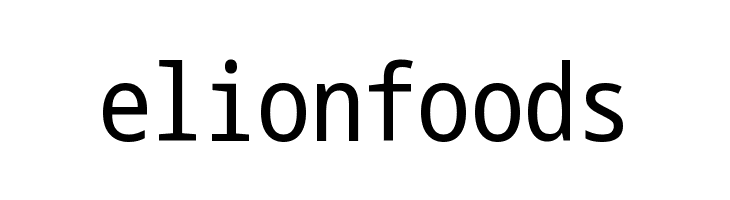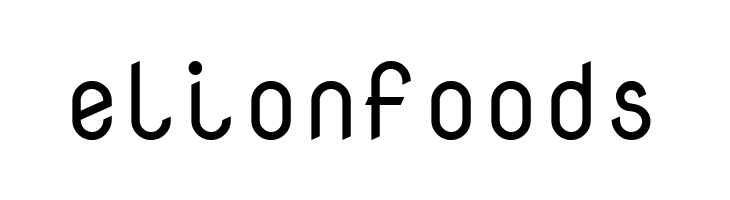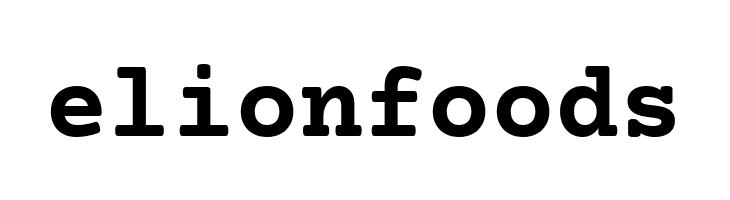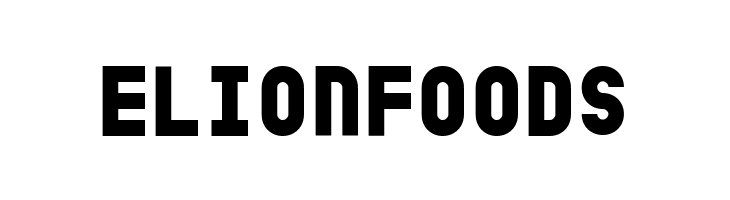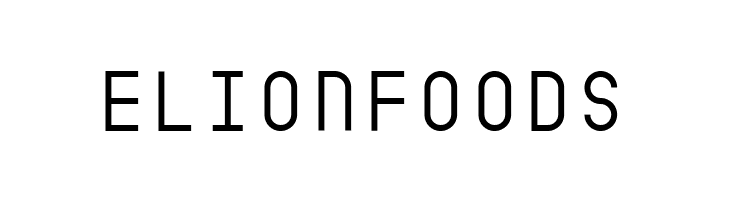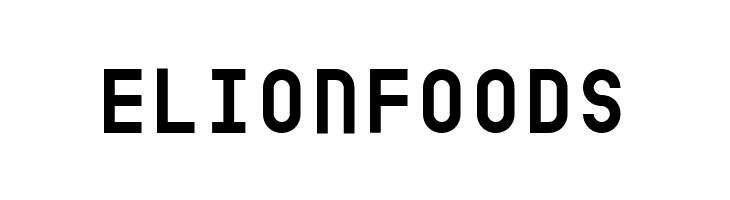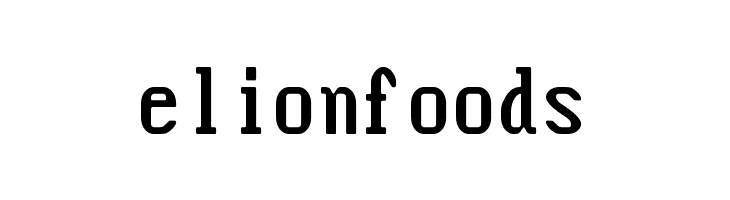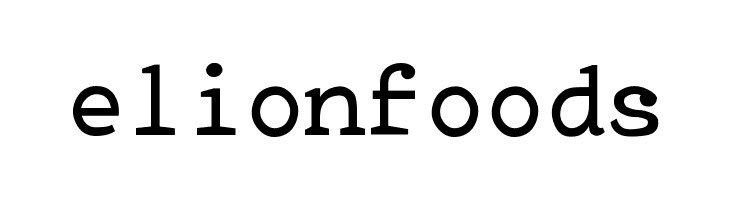
A monospaced, semi-condensed, extra bold sans-serif font with a modern and clean design.
A clean, monospaced, extra-condensed sans-serif font ideal for technical use.
A monospaced, extra condensed, light sans-serif font with a modern and clean design.
A clean, modern monospaced font with a condensed, medium-weight design.
A bold, monospaced, condensed sans-serif typeface with a strong, modern appearance.
A modern, monospaced, extra-condensed sans-serif font with semi-bold weight.
A clean, modern monospaced typeface with an extra condensed style and medium weight.
A clean, modern monospaced font with uniform character widths and low contrast.
A geometric, monospaced font with a modern, technical look.
A monospaced font with a classic, typewriter-inspired design.
A bold, monospaced font with a classic typewriter style.
A bold, monospaced font with a modern and functional design.
A modern, monospaced font with geometric precision and rounded edges.
A bold, monospaced font with a modern, geometric style.
A classic monospaced font with a clean, structured design.
A bold, monospaced font with uniform character width and consistent stroke thickness.
A clean, modern monospaced font with uniform character width and geometric structure.
A bold, geometric monospaced font with a modern, technical style.
A monospaced font with a clean, geometric design ideal for technical use.
A modern, geometric monospaced font with clean lines and uniform spacing.
A modern, monospaced font with geometric shapes and consistent stroke weight.
A dynamic and flowing script font with elegant, cursive letterforms.
A bold, monospaced font with a mechanical, retro style.
A bold, condensed monospaced font ideal for coding and technical use.
A modern, monospaced font with a clean, condensed design ideal for technical applications.
A decorative, boxed font with a modern and geometric style.
A compact, monospaced serif typeface with a clean and orderly appearance.
A clean, monospaced font with geometric influences and consistent character width.
A thin, italicized monospaced font with a modern and minimalist design.
A modern, monospaced italic font with medium contrast and clean lines.
A clean, extra-light italic monospaced font with a modern aesthetic.
A clean, monospaced font with a modern and geometric design.
A modern, monospaced font with an extra light weight and geometric design.